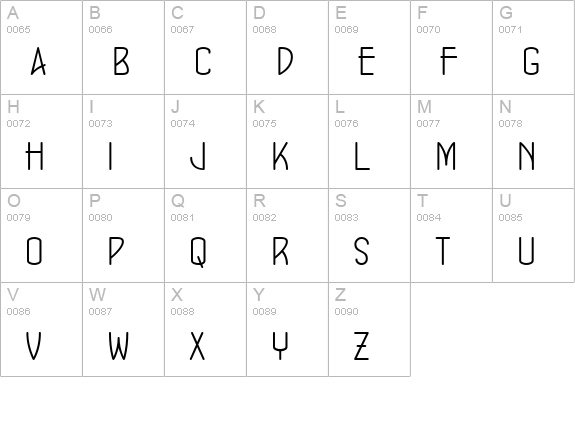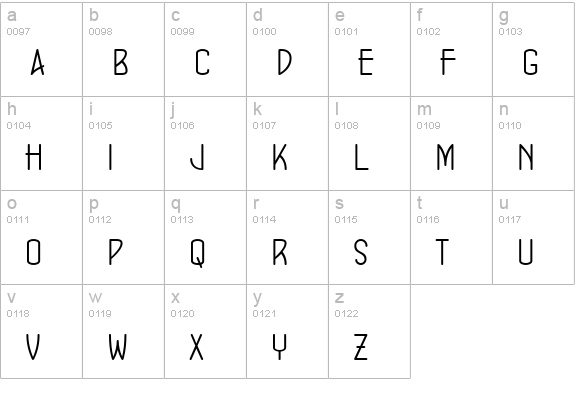
ConcursoModerne BTN Lt is a stylish and modern font that exudes a sleek and sophisticated aesthetic. Its clean lines and elegant curves make it perfect for a wide range of design projects, from branding to editorial work. The light weight of this font adds a touch of delicacy and refinement, making it a versatile choice for both print and digital applications. What makes ConcursoModerne BTN Lt even more appealing is that it is free to download at FontsMarket.com. This means that you can easily access this high-quality font without any cost, making it a valuable addition to your font library. Whether you're a professional designer or a hobbyist looking to elevate your projects, ConcursoModerne BTN Lt is a fantastic choice that combines style, versatility, and accessibility.